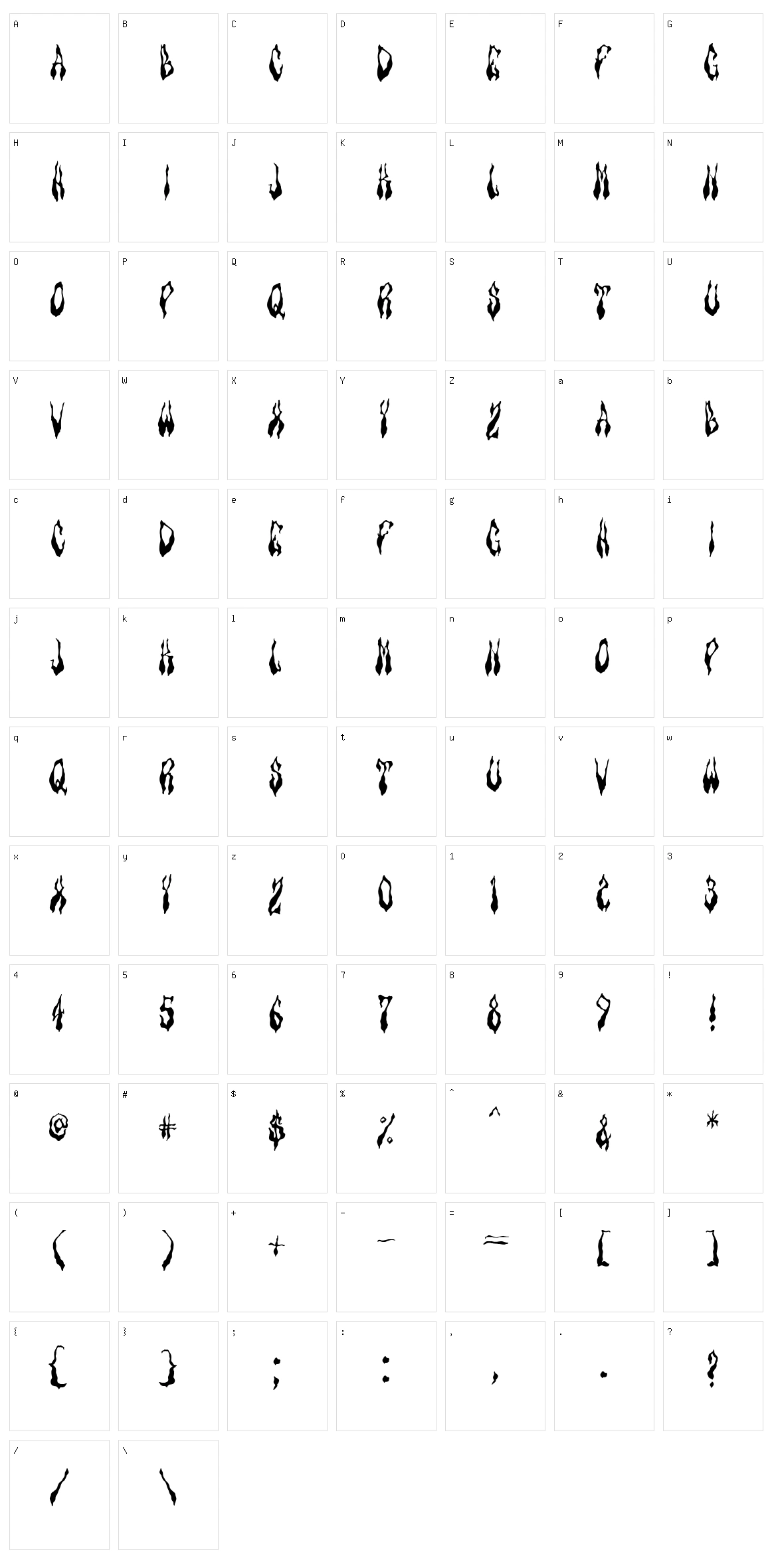
The free font Barbeque Jr is carefully designed by Barbuh Q, showcasing a thoughtful balance of creativity and usability and falls under the Horror font style. When you download the ZIP file, it contains only 33.95 KB of font files, making it lightweight and quick to download. Please review the license details below to understand permitted usage and distribution rights. If license information is not available, we recommend using this font for personal projects only or contacting the author directly for commercial usage permissions.